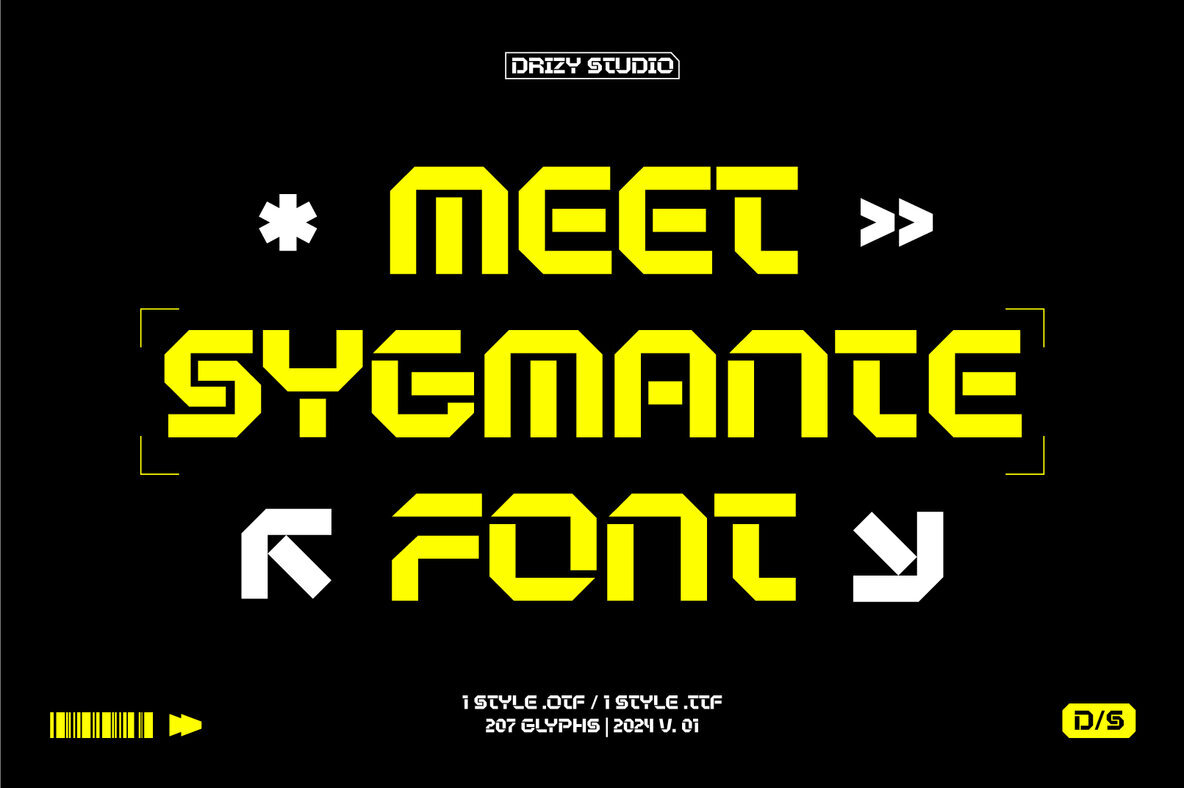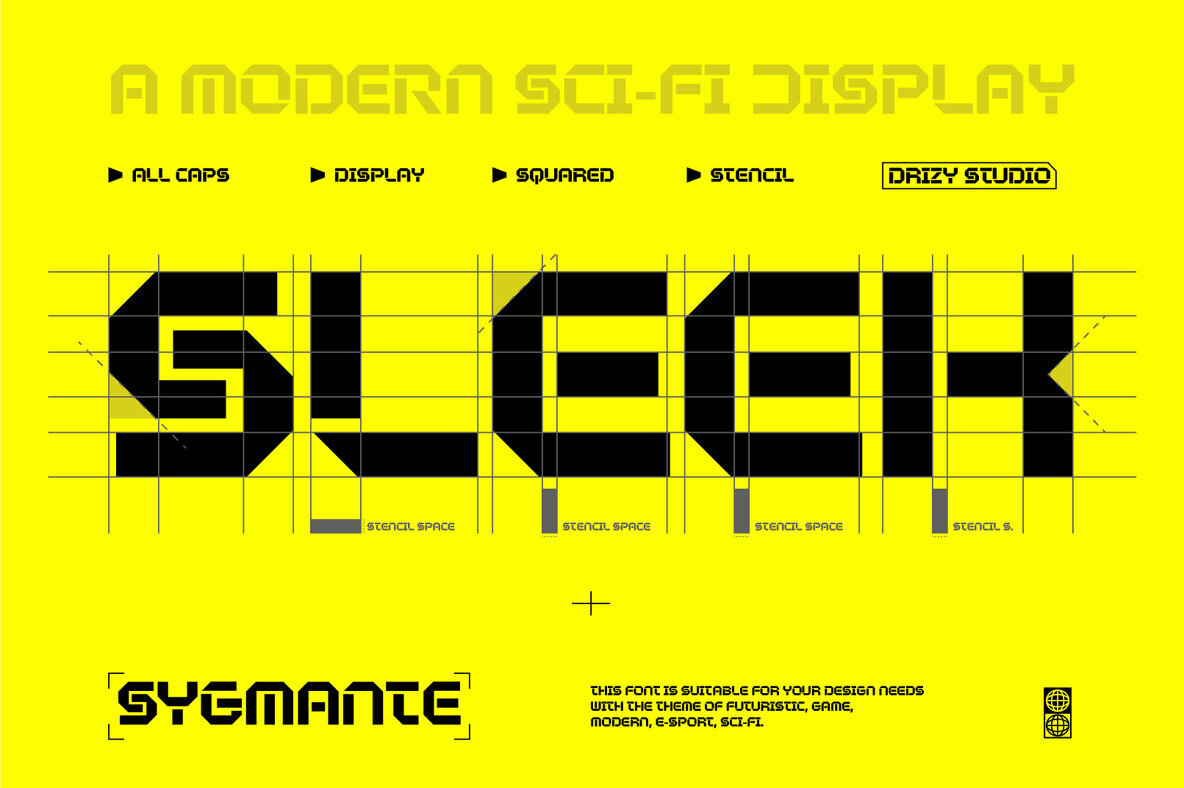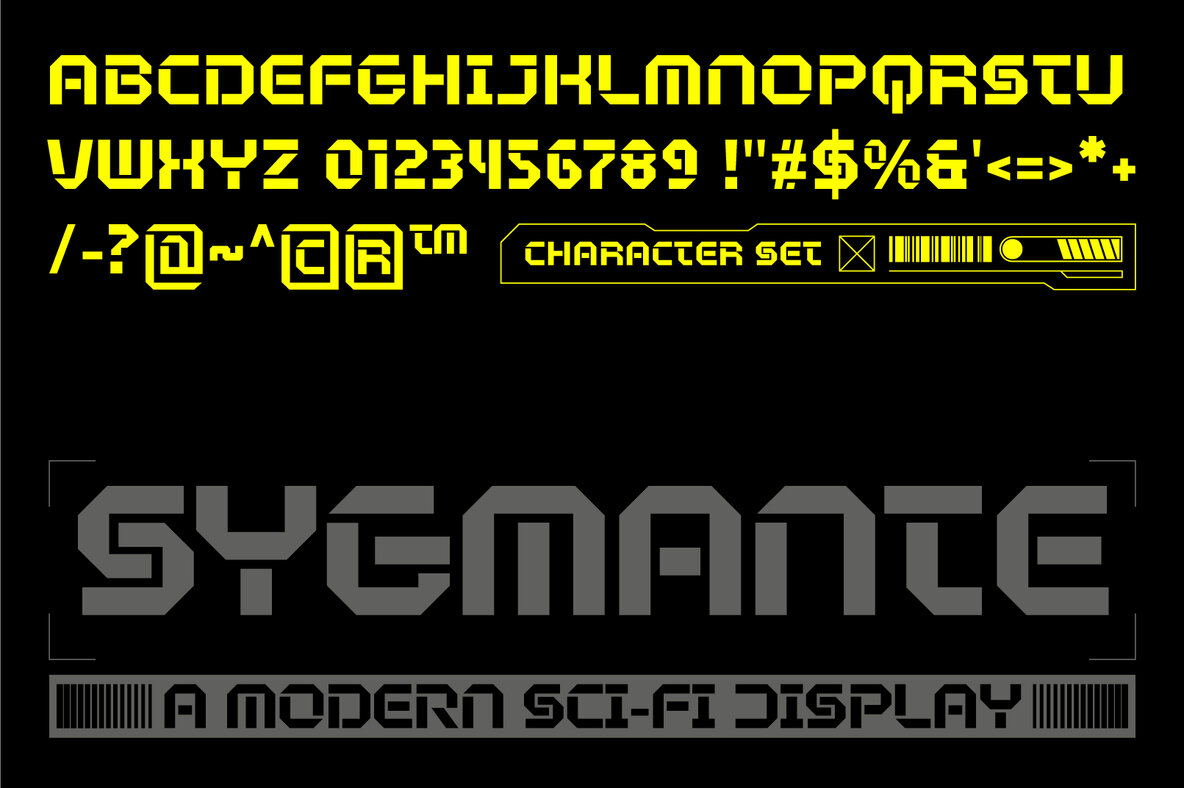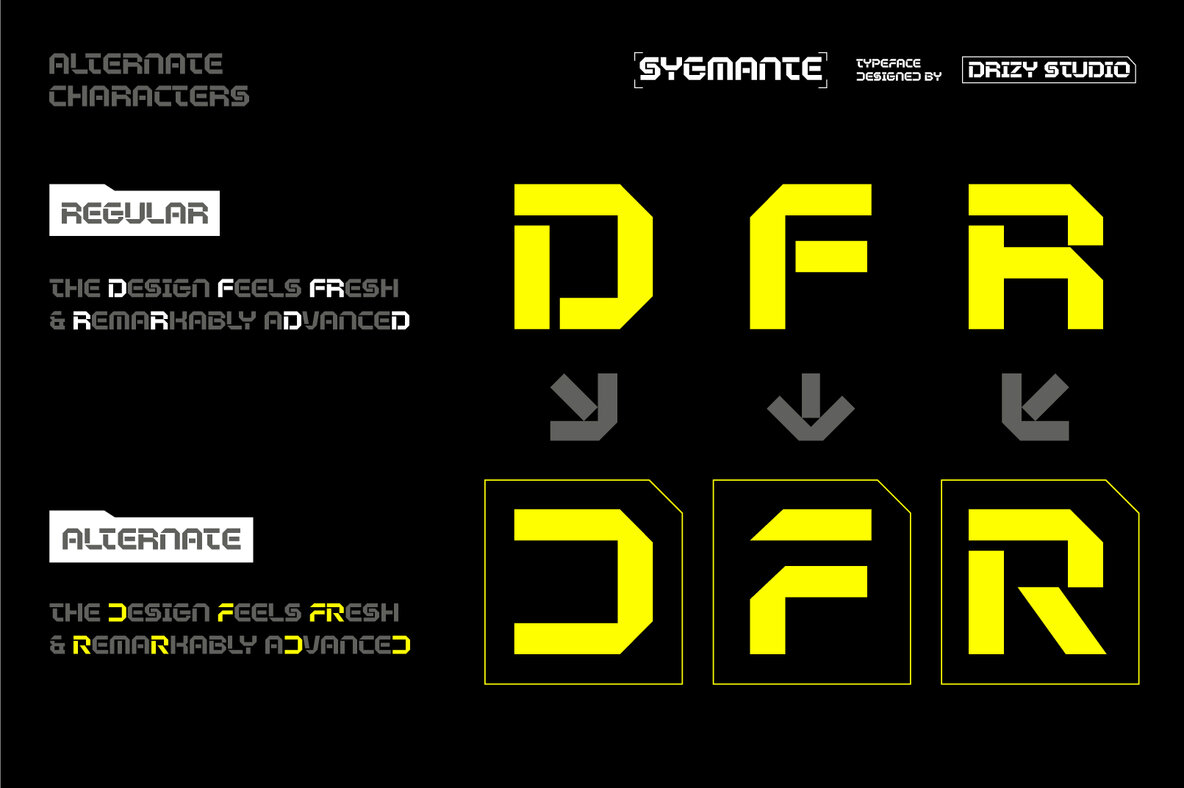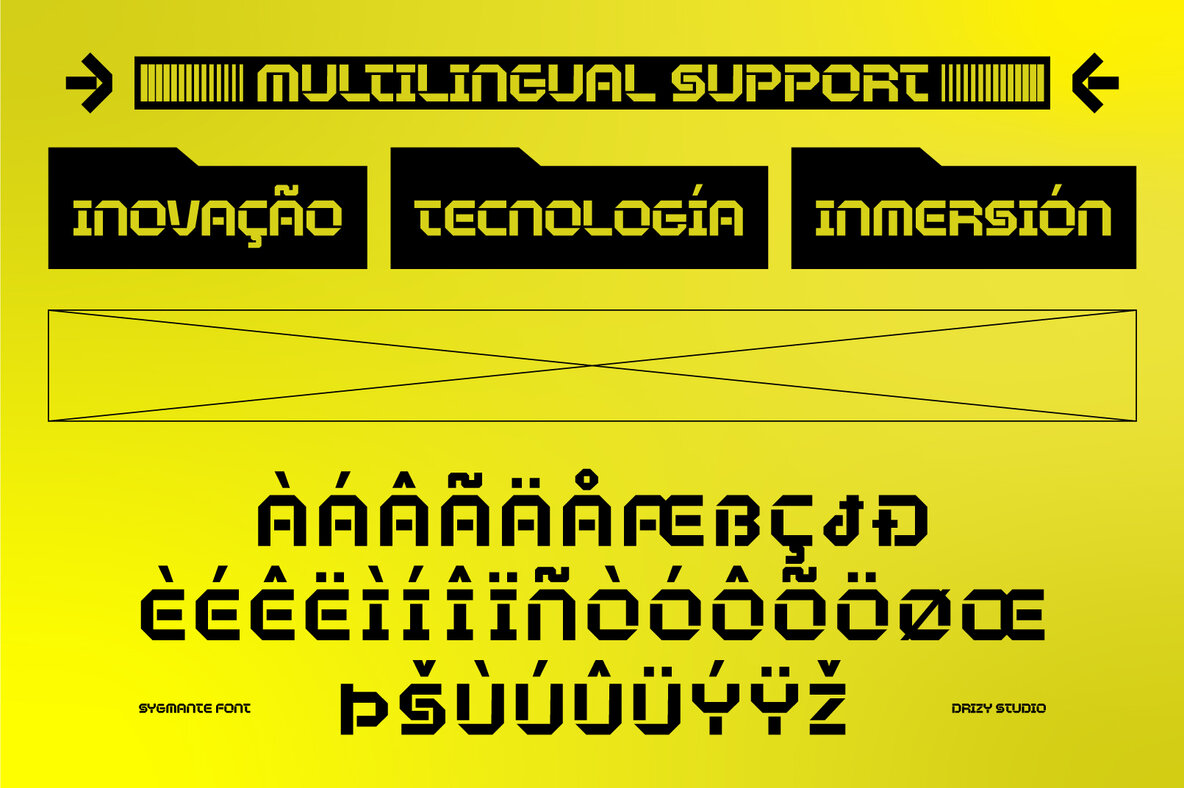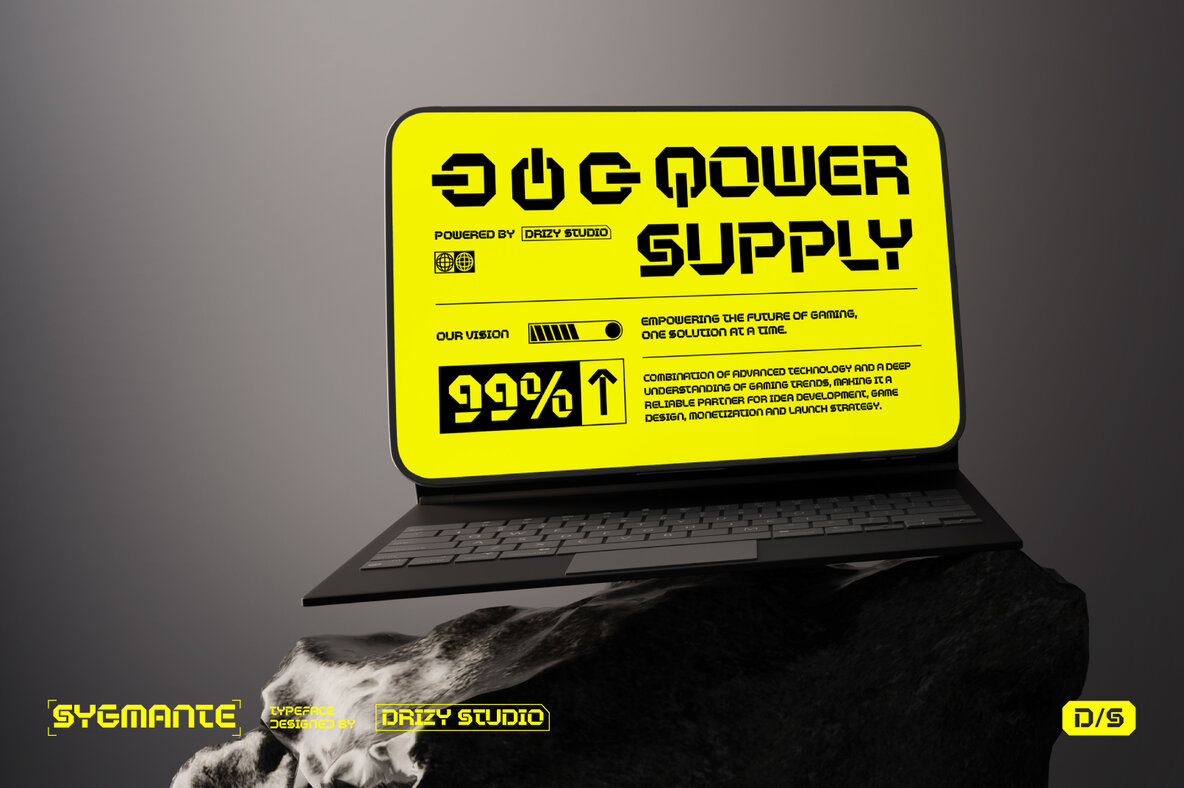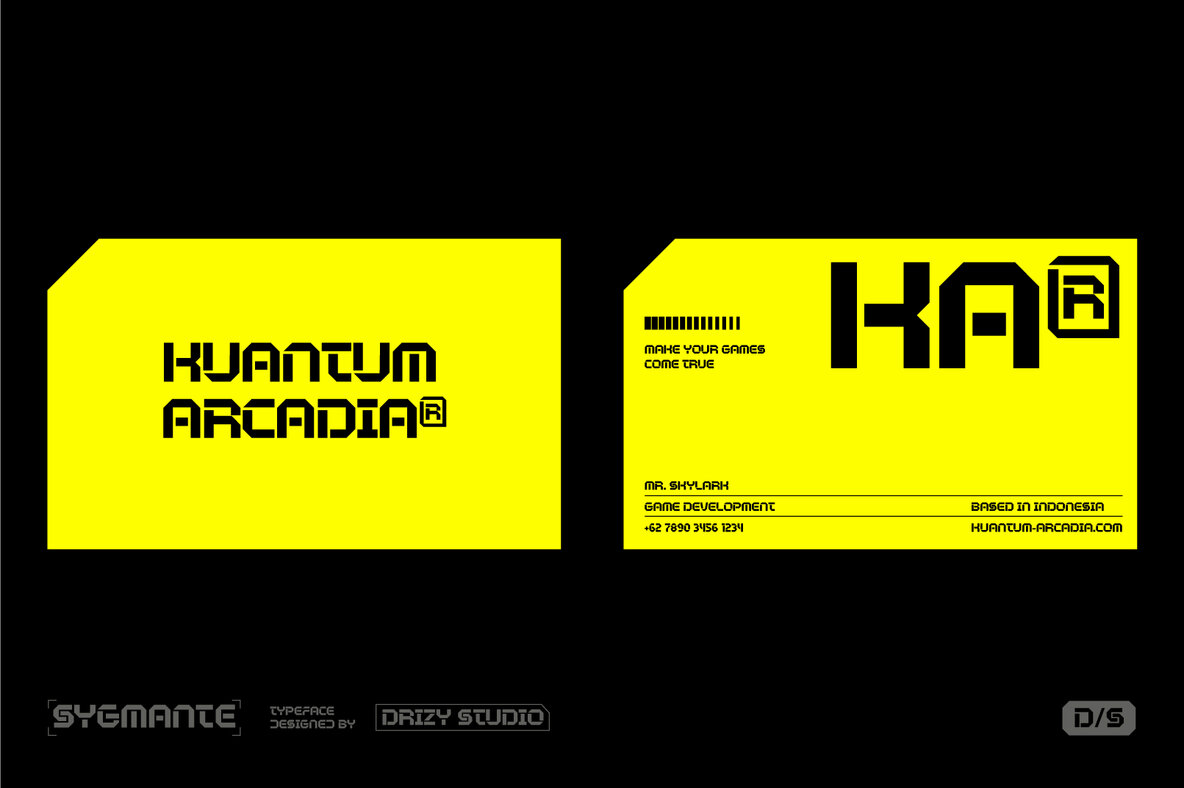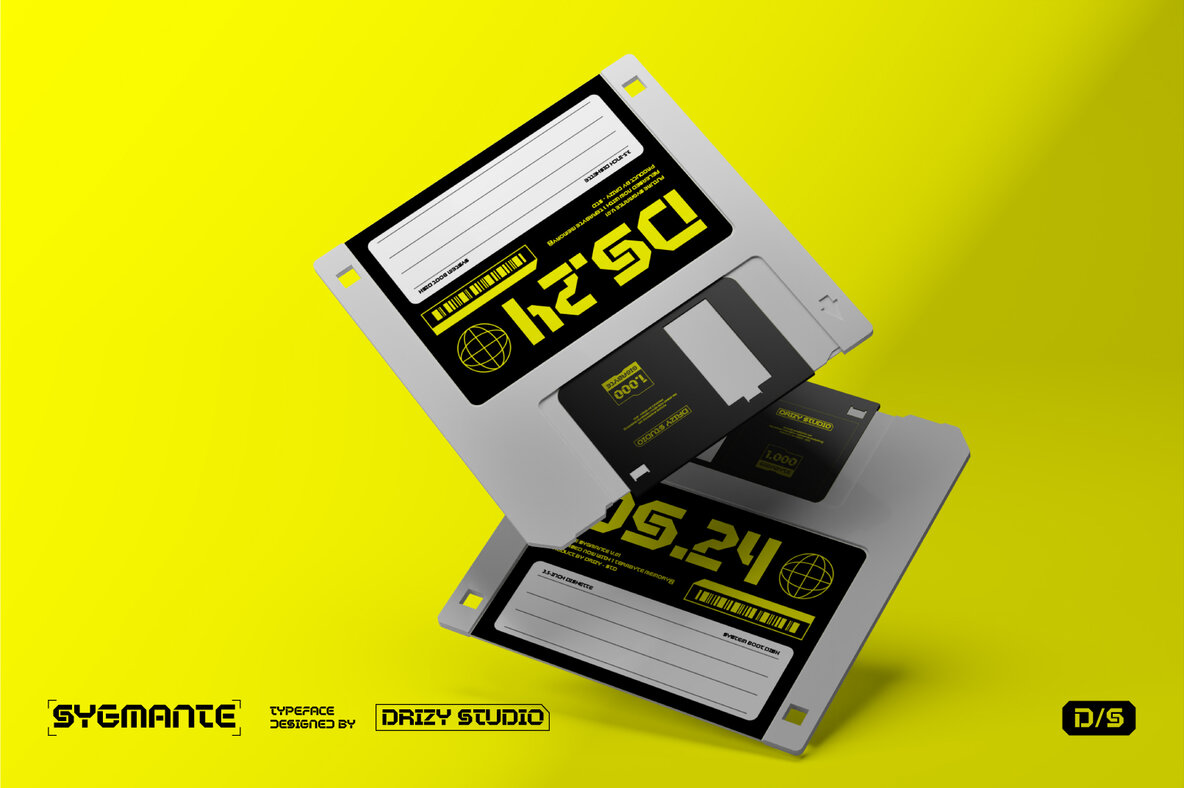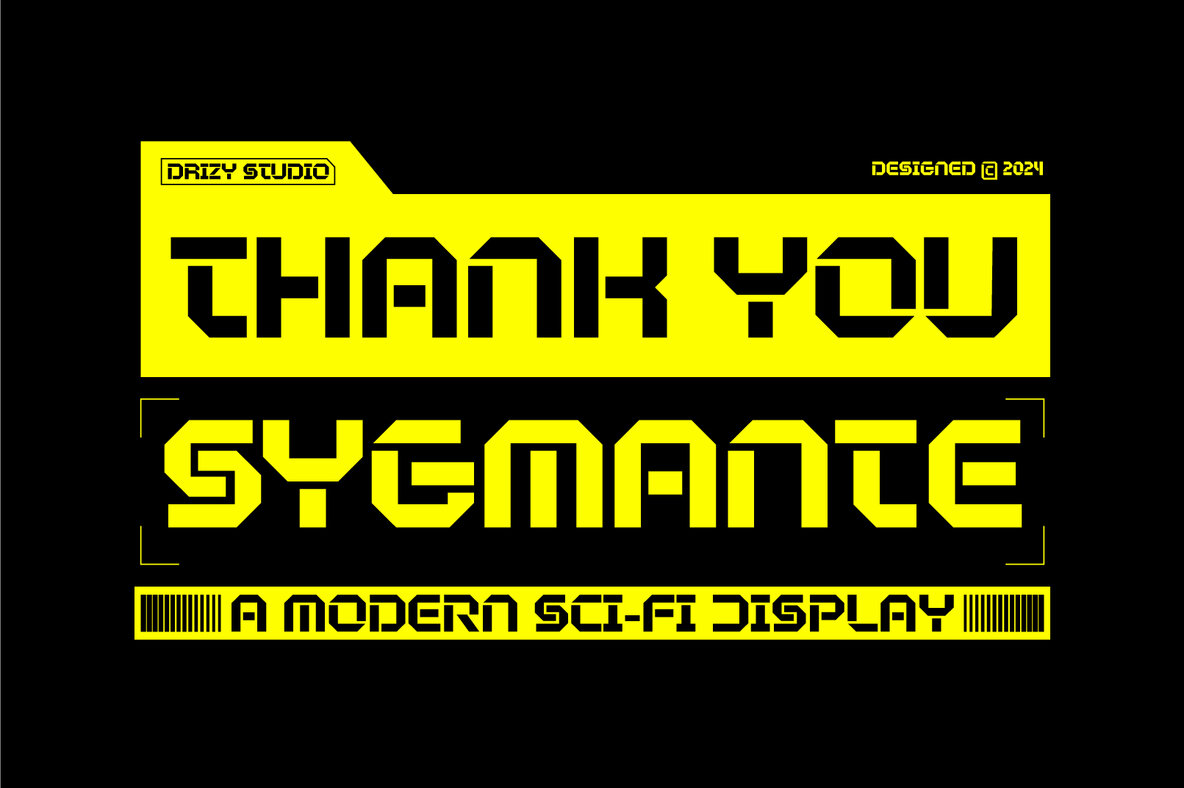
Sygmante Font
Sygmante Regular
Sygmante is a modern typeface that merges futuristic aesthetics with bold, dynamic lines, making it an ideal choice for the esports and gaming community. Its sharp angles, geometric precision, and sleek design exude energy and innovation, perfect for titles, team logos, and promotional materials. This font captures the essence of high-tech environments, infusing any project with a powerful and modern vibe. Whether used for digital banners, game branding, or esports merchandise, Sygmante helps your designs make a strong impact in the world of gaming and sci-fi.
Key features of Sygmante include an all-caps character set, comprehensive punctuation, and numbers, as well as multilingual support. Additionally, it offers alternates for letters "D," "R," and "F," enhancing design flexibility. Choose Sygmante to elevate your creative projects and explore its full potential in the realm of esports and futuristic design.